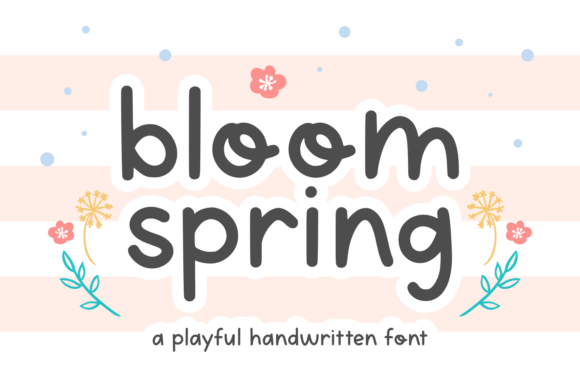
Discover the Delightful Bloom Spring Font: A Perfect Choice for Cheerful Designs
As designers, we’ve all been there – stuck in a creative rut, searching for the perfect font to bring our project to life. I recall working on a spring-themed greeting card design, feeling frustrated with the usual fonts that seemed dull and uninspiring. That’s when I stumbled upon the Bloom Spring font, and it instantly captured the cheerful essence of the season. In this article, I’ll share my experience with this lovely font, its features, and how to make the most of it in your designs.
A Personal Review: What I Love About Bloom Spring Font
Here’s what makes Bloom Spring font a standout choice for designers like you:
• ✨ Light and flowing strokes: Each letter feels like it’s dancing with the spring breeze, making it perfect for conveying a sense of joy and playfulness.
• ✅ Loose and slightly curvy writing style: This font exudes a spontaneous and fun impression, ideal for designs that require a cheerful touch.
• 🌸 Versatile and highly legible: Bloom Spring font works beautifully for both headings and body text, making it suitable for a wide range of design projects.
While Bloom Spring font is an excellent choice, there are a few minor considerations to keep in mind:
• 🤔 Limited use in formal designs: Due to its playful nature, Bloom Spring font might not be the best fit for formal or professional designs that require a more serious tone.
Bloom Spring font was inspired by the beauty of nature and the joy of spring. The designer aimed to create a font that captures the lighthearted and carefree spirit of the season, making it perfect for designs that require a cheerful and uplifting message.
What is Bloom Spring font best suited for? Bloom Spring font is ideal for designs that require a cheerful and playful touch, such as spring greeting cards, garden party invitations, or family event posters.
Does Bloom Spring font support OpenType features? Yes, Bloom Spring font supports OpenType features, including stylistic alternates and glyphs, which can be accessed in compatible design software.
Can I use Bloom Spring font for children’s product designs? Absolutely! Bloom Spring font is a great choice for children’s product designs, as its playful and cheerful personality is sure to appeal to kids and parents alike.